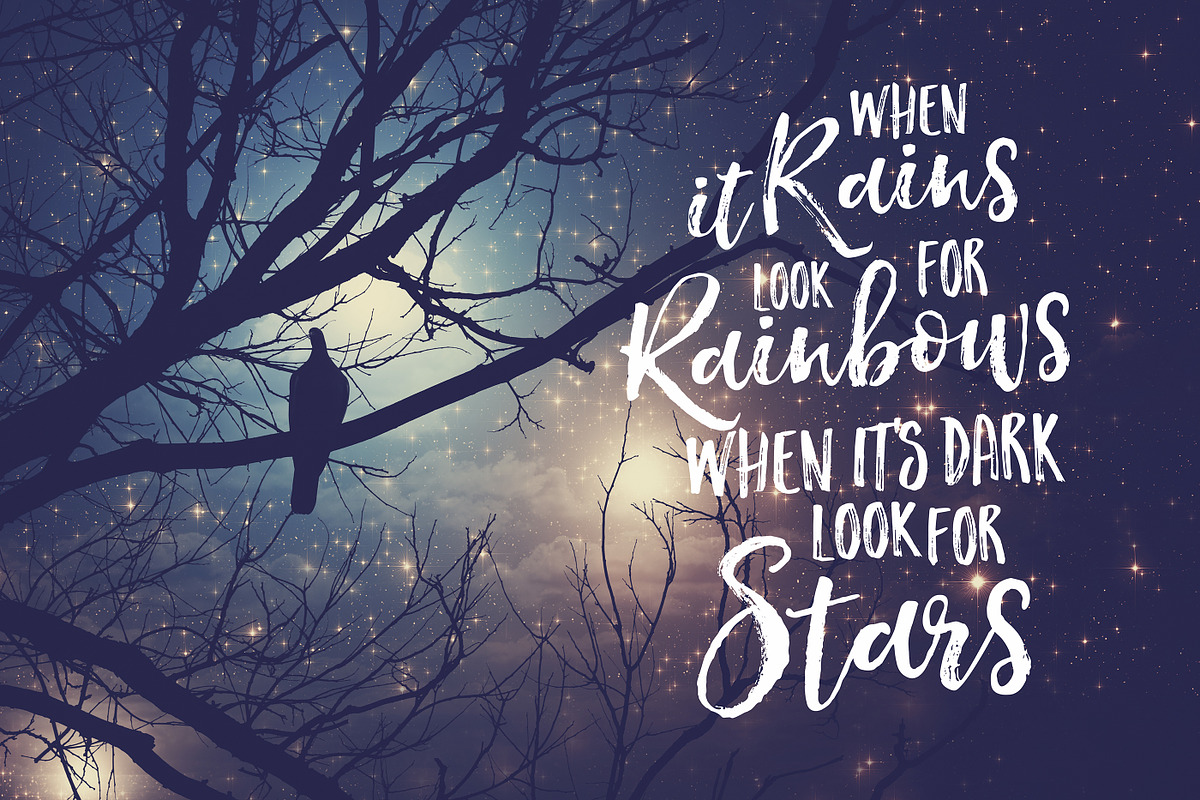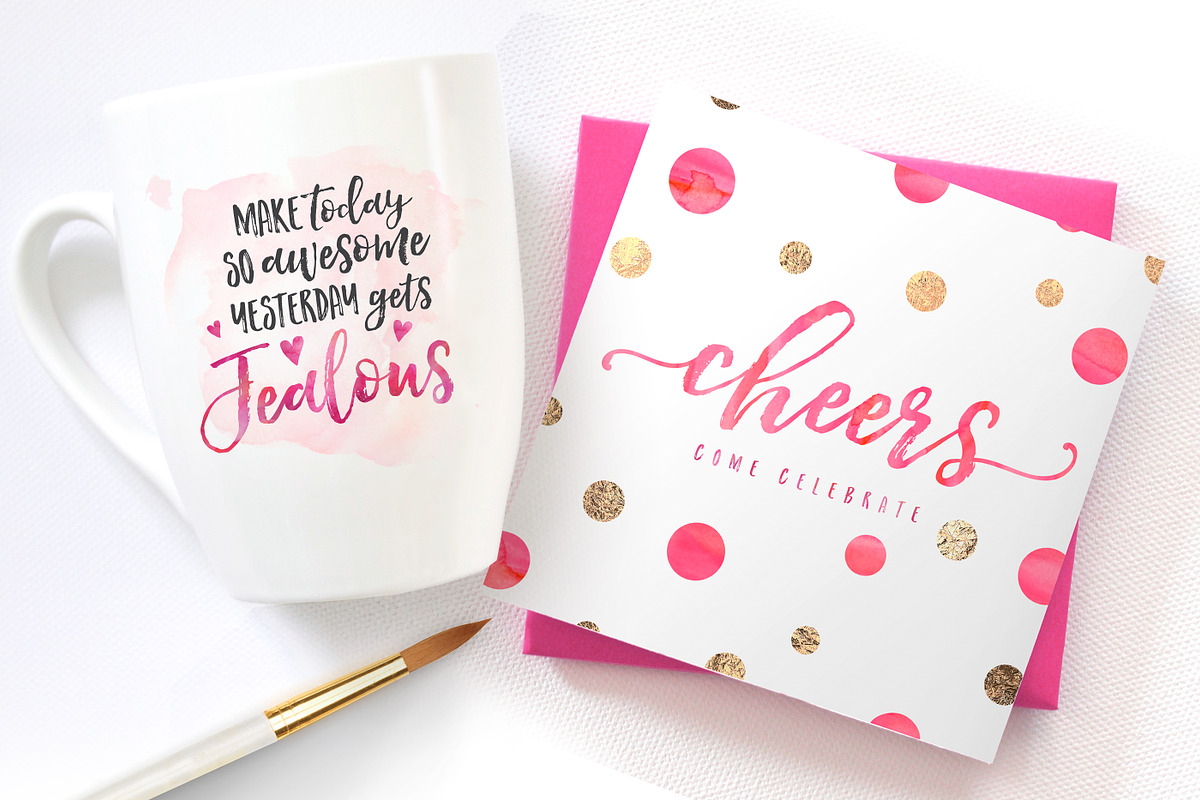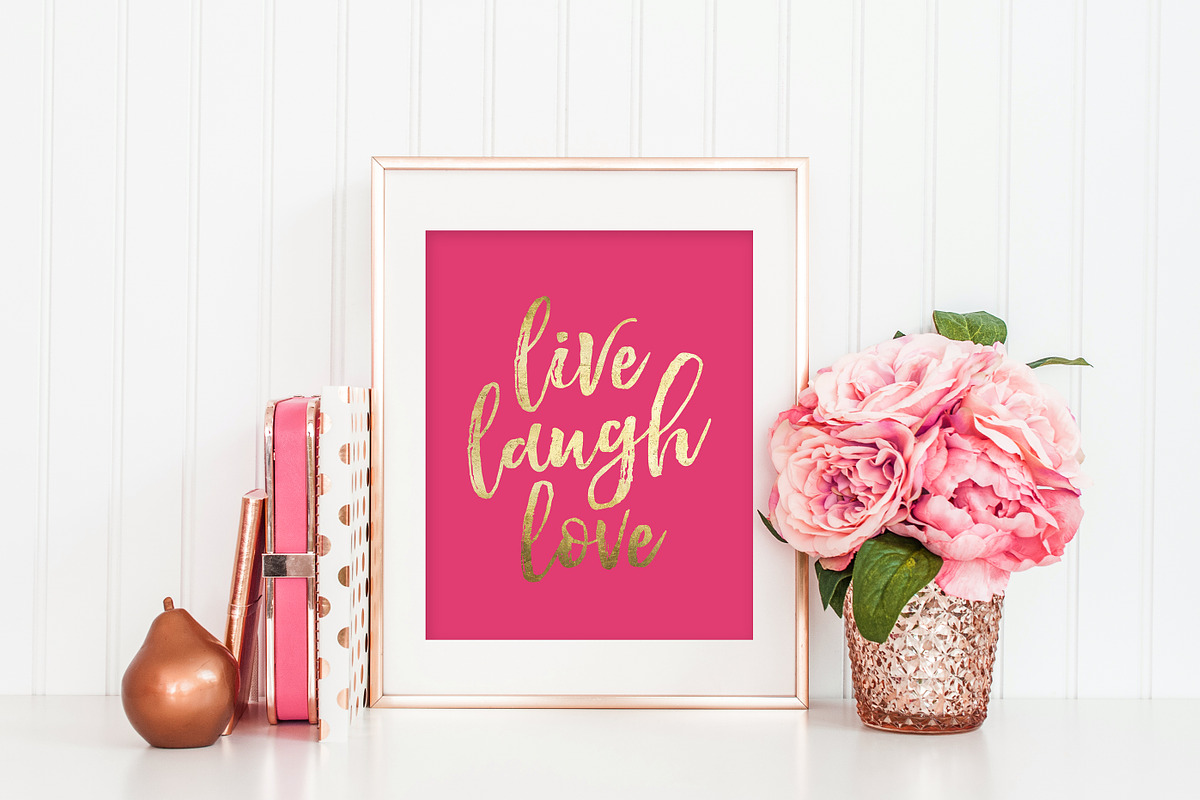
Hello Sunshine is a playful font duo bursting with character! This hand-brushed typeface features natural dry brush textures, a bouncy baseline, and a perfectly paired marker font. Plus, it includes 52 bonus ornaments for extra flair.
With alternate characters, ligatures, and multilingual support, every word feels unique. PUA Unicode encoding ensures full access to extras, usable in Font Book (Mac) or Character Map (Windows) without special design software.